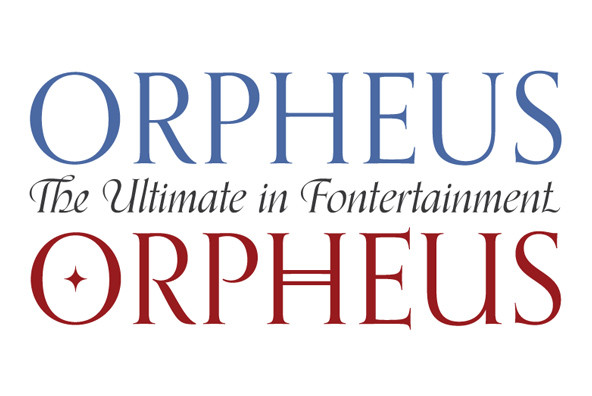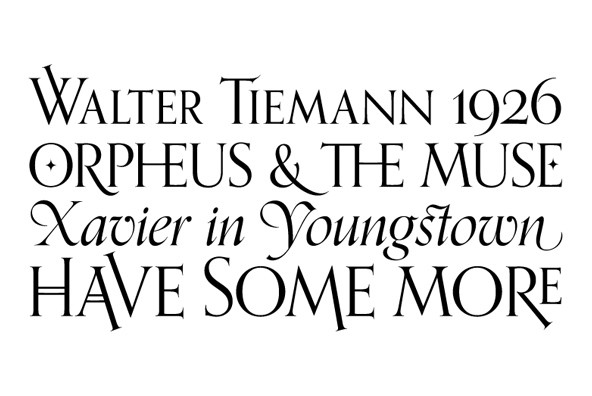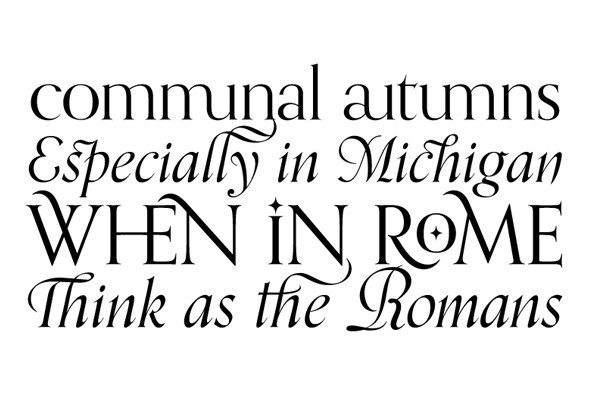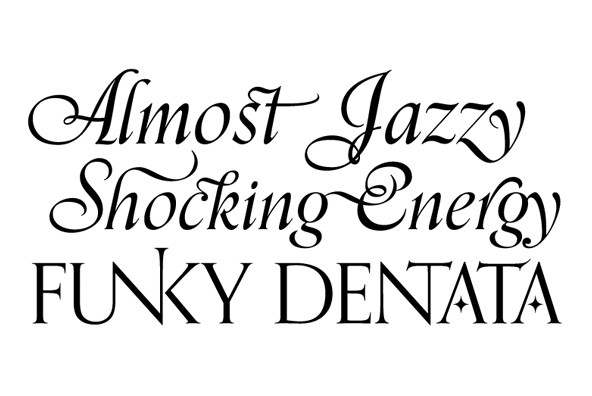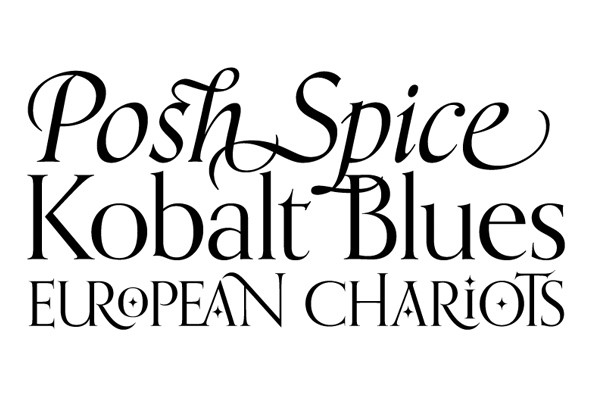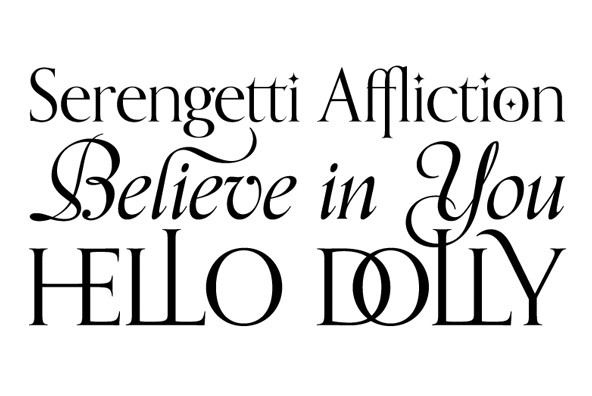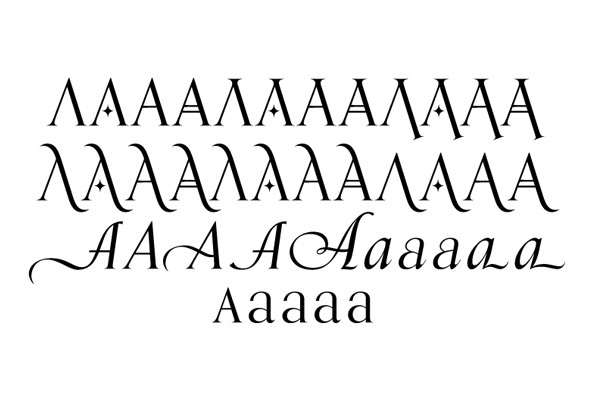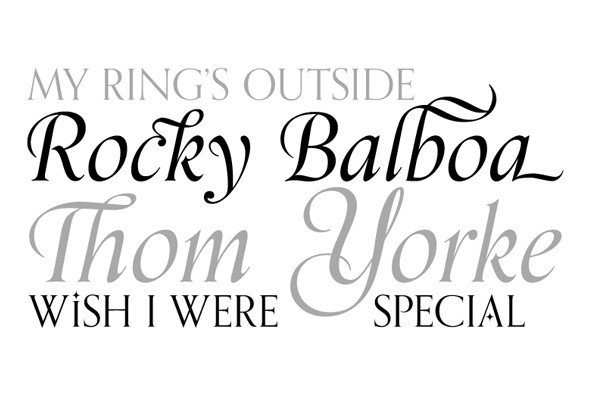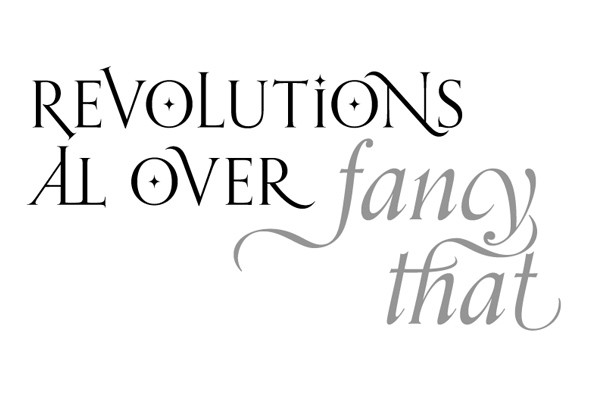
Orpheus Pro
The original Orpheus design by Walter Tiemann (1926-1928, Klingspor) was certainly a masterpiece. Unfortunately, like so many typefaces of that between-wars era, it got overlooked when type technology changed over to film, and once again when digital type came around. But during the decade or so when it was available on the metal type market, it was quite popular in Germany. Tiemann was already famous for having an incomparable instinct for the construct and proportions of classic Roman caps, something that shows in spades here, but the surprising genius of Orpheus at the time was how it managed to seamlessly combine an expert vision of the traditional empire caps with a lowercase that showcases a very fine and precise infusion of that efficient rhythm of modern minimalism that was all the rage in Germany at the time, which of course lives on to this very day.
The italic companion to the original Orpheus roman was released in 1936, under the name Euphorion. One reason it never really took off is of course the fact that the war started just 3 years later, so the typeface hadn't had much time for good exposure. Even so, the Euphorion italic was entirely different than Orpheus in its treatment of standard sources of typographic rules and inspirations. With Euphorion, Tiemann maintained the status quo of the traditional italic minuscules, but added a few distinguishing features to letters like the g, k, t, v, w and y. It was with the majuscules where he went really fancy. Alongside the standard traditional italic set of caps, he designed two extra sets, each moving a notch away from the traditional capitals and closer to formal calligraphy, to a point where elegance is just oozing out of some of the swashed shapes. This kind of exuberant design progression must have been a nightmare for the Klingspor punchcutters and pantographs, as evidenced by some of the print specimens left from back then.
The Orpheus Pro fonts started out as a straightforward revival of Tiemann's Orpheus and Euphorion. It was as simple as a work brief can be. But did we ever get carried away, and what should have been finished in a few weeks ended up consuming the best part of a year, countless jugs of coffee, and the merciless scrutiny of too many pairs of eyeballs. The great roman caps just screamed for plenty of extensions, alternates, swashes, ligatures, fusions from different times, and of course small caps. The roman lowercase wanted additional alternates and even a few ligatures. The italic needed to get the same treatment for its lowercase that Tiemann envisioned for the uppercase. So the lowercase went overboard, with plenty of alternates and swashes and ligatures. Even the italic uppercase was augmented by (maybe too many!) extra letters. Orpheus Pro has been a real ride.
But now, looking at the end result with tired eyes and rapidly fluctuating moods, we certainly think it was worth it. There must be a snazzy line about Orpheus playing great music for your eyes, but we haven't quite formulated it yet. Such epics are hard to come by in fontland.